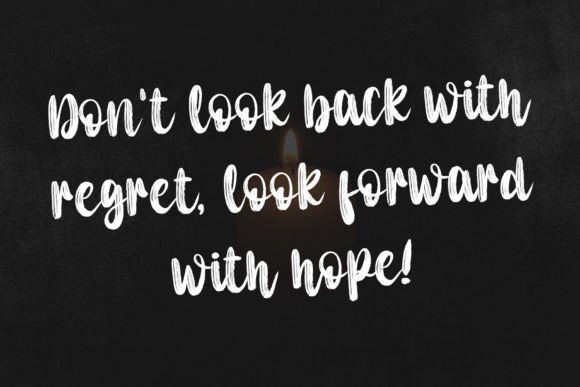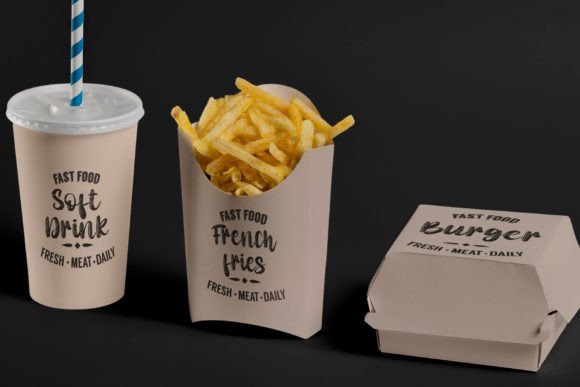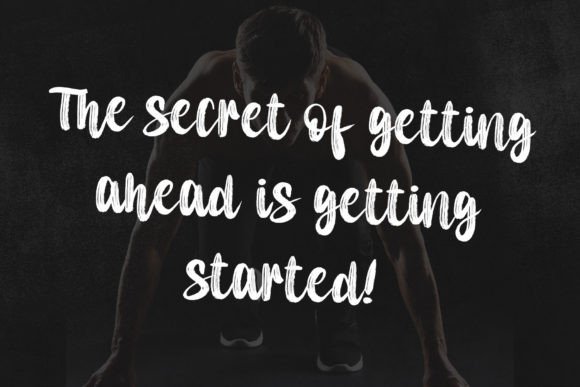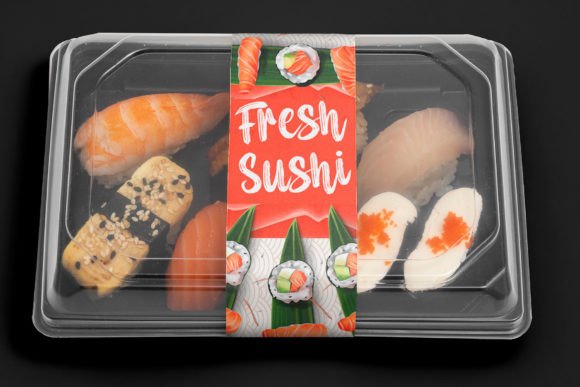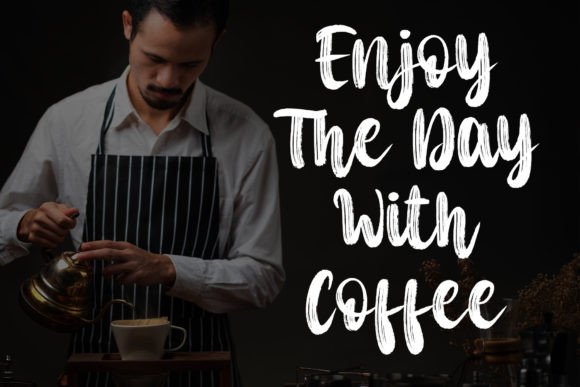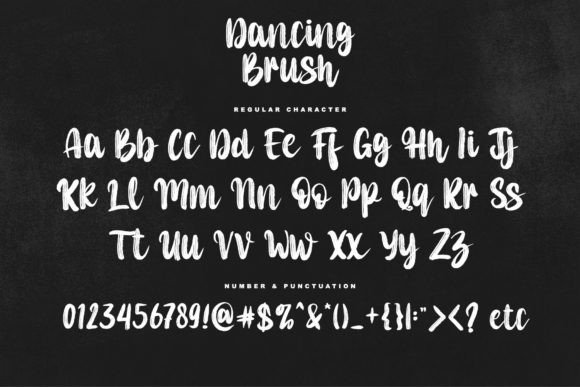
Introduction to Dancing Brush Font
Dancing Brush is a cool and modern handwritten brush font.
Incredibly versatile, this font is perfect for product design, food packaging, restaurant menus, or anything that needs a bold, handwritten touch Dancing Brush is PUA encoded which means you can access all the glyphs and ligatures with ease.